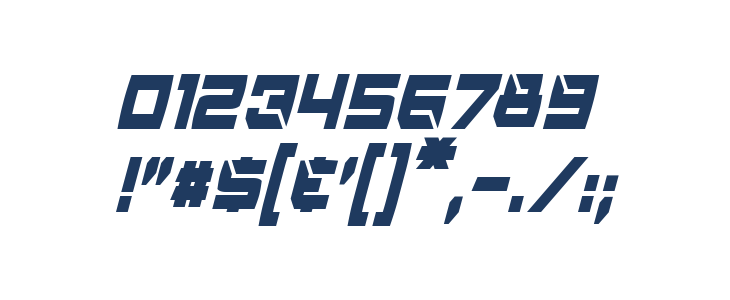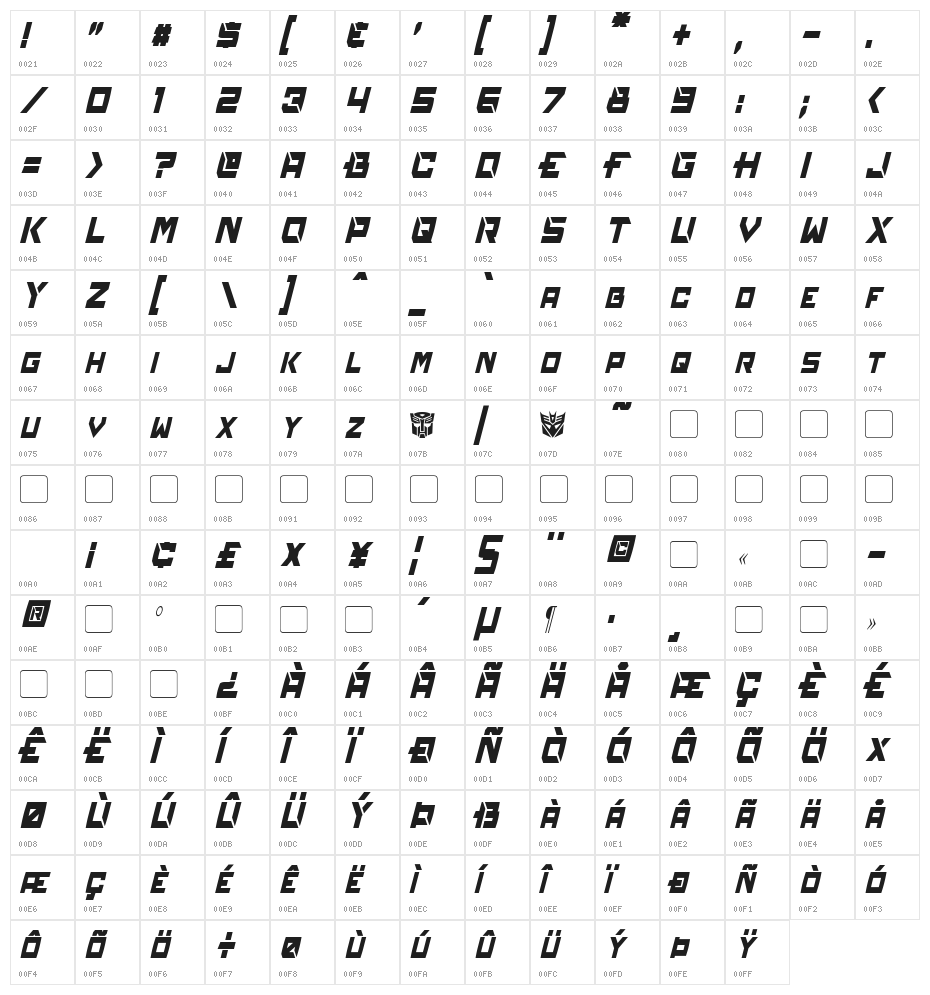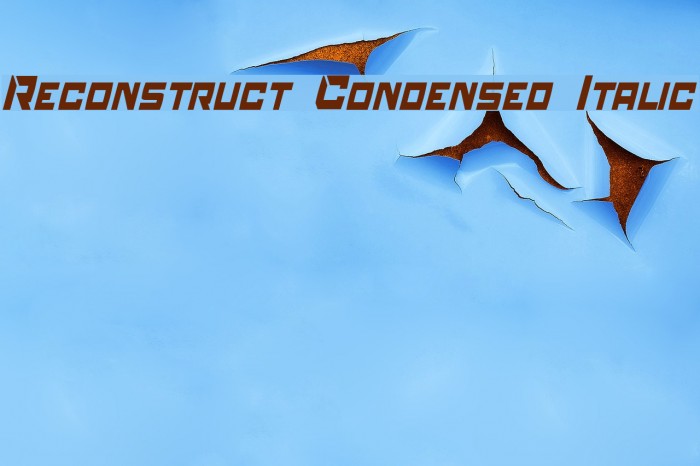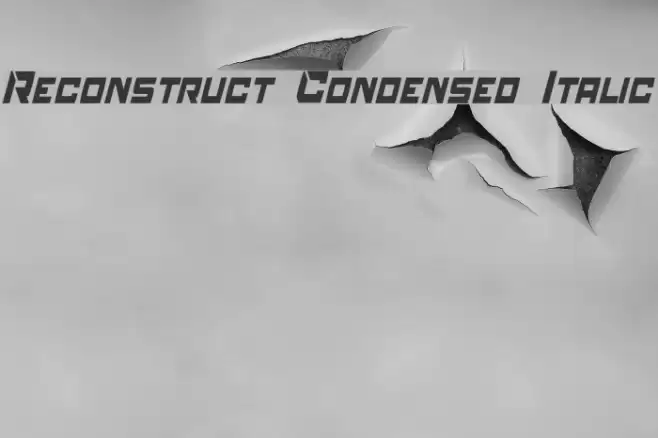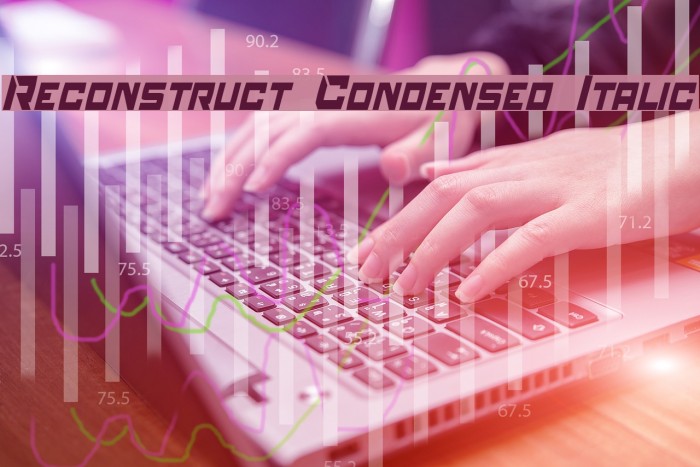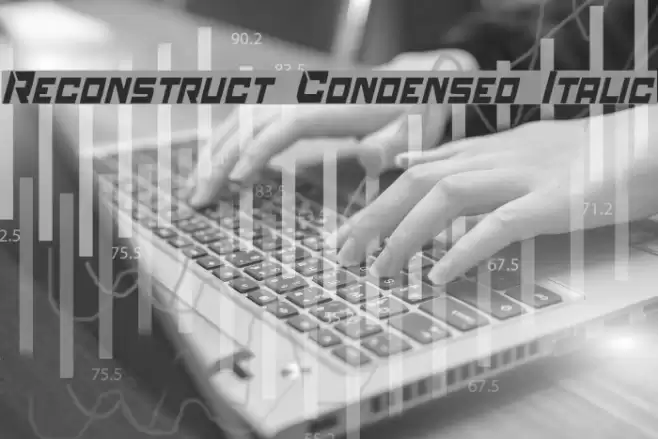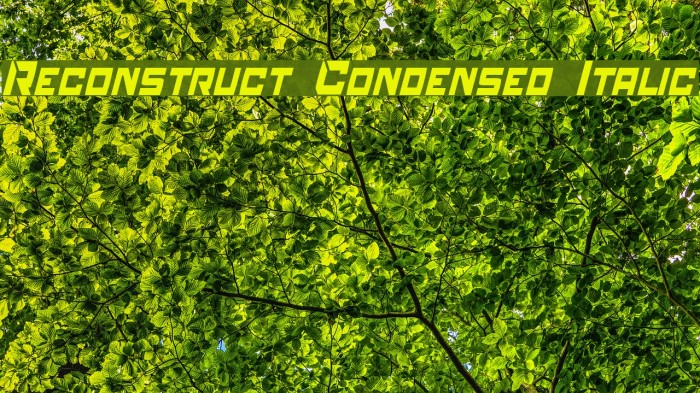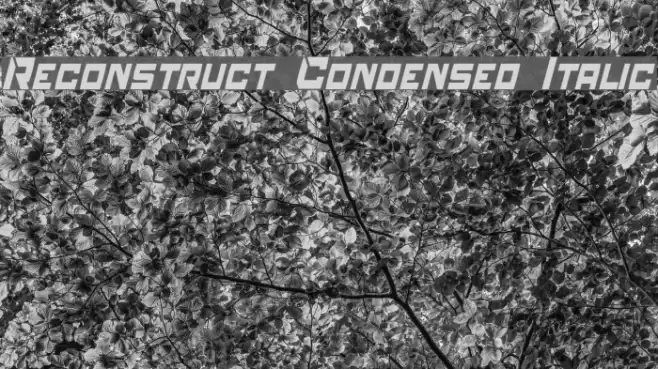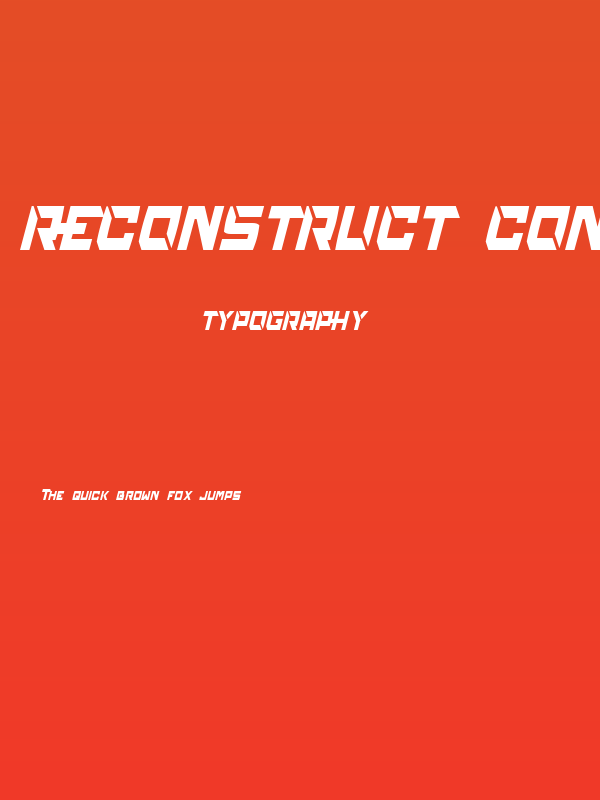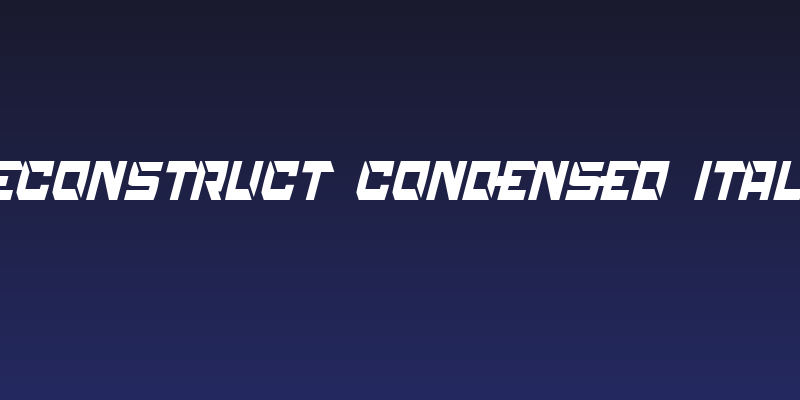
Reconstruct Condensed Italic Font
Reconstruct Condensed Italic Description
This font features a bold and dynamic design with a distinctly modern and futuristic appeal. The characters are italicized and condensed, giving them a sleek and streamlined appearance. The angular cuts and sharp edges contribute to its aggressive and energetic style, making it stand out in any design. The uppercase and lowercase letters maintain a consistent height, enhancing readability while preserving the font's unique character. The numerals and special characters are designed with the same boldness and angularity, ensuring a cohesive look across all elements. This font is ideal for projects that require a strong visual impact and a contemporary aesthetic.